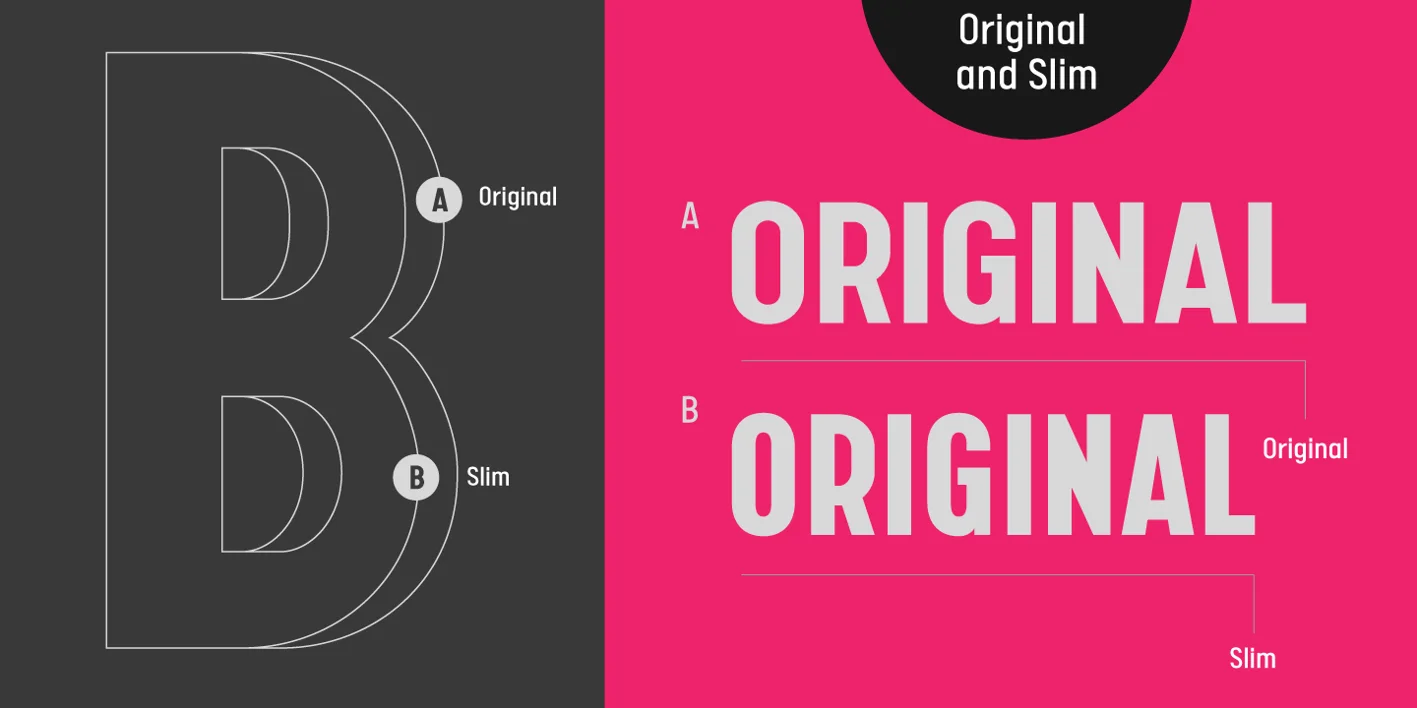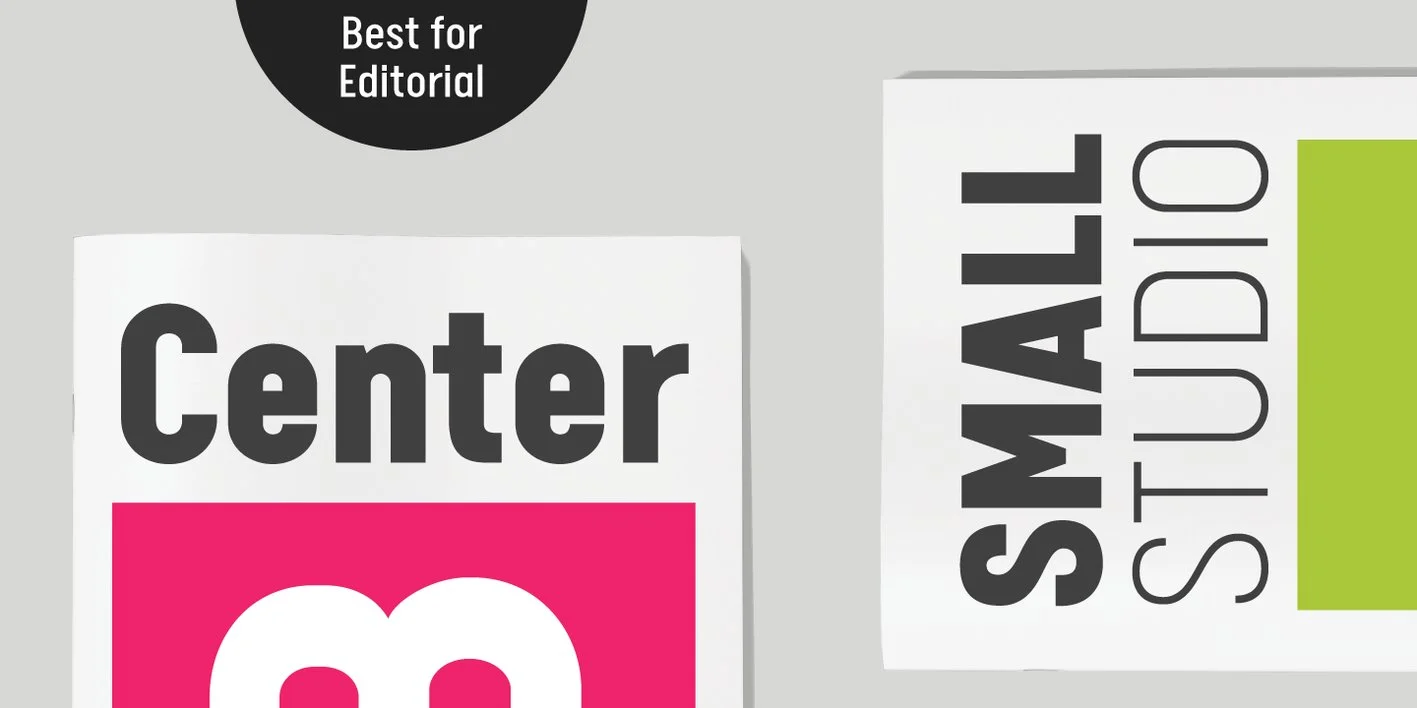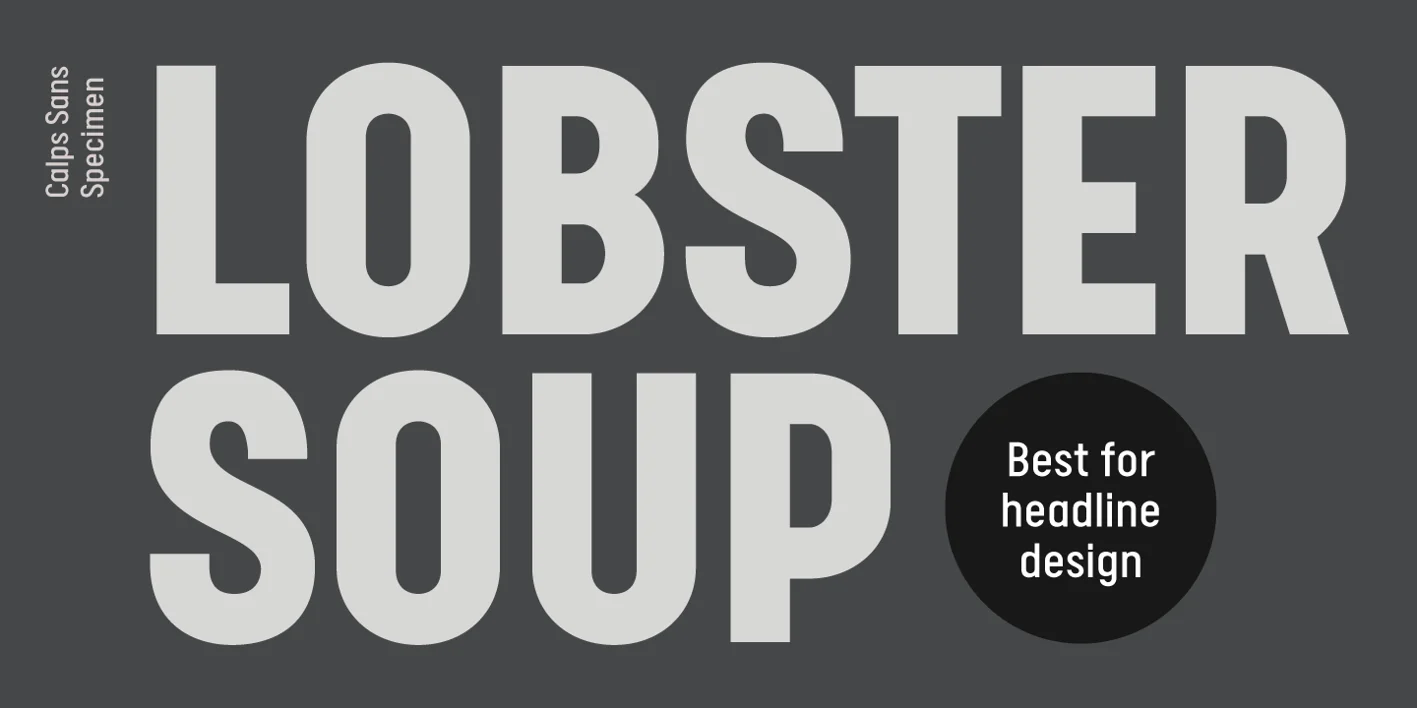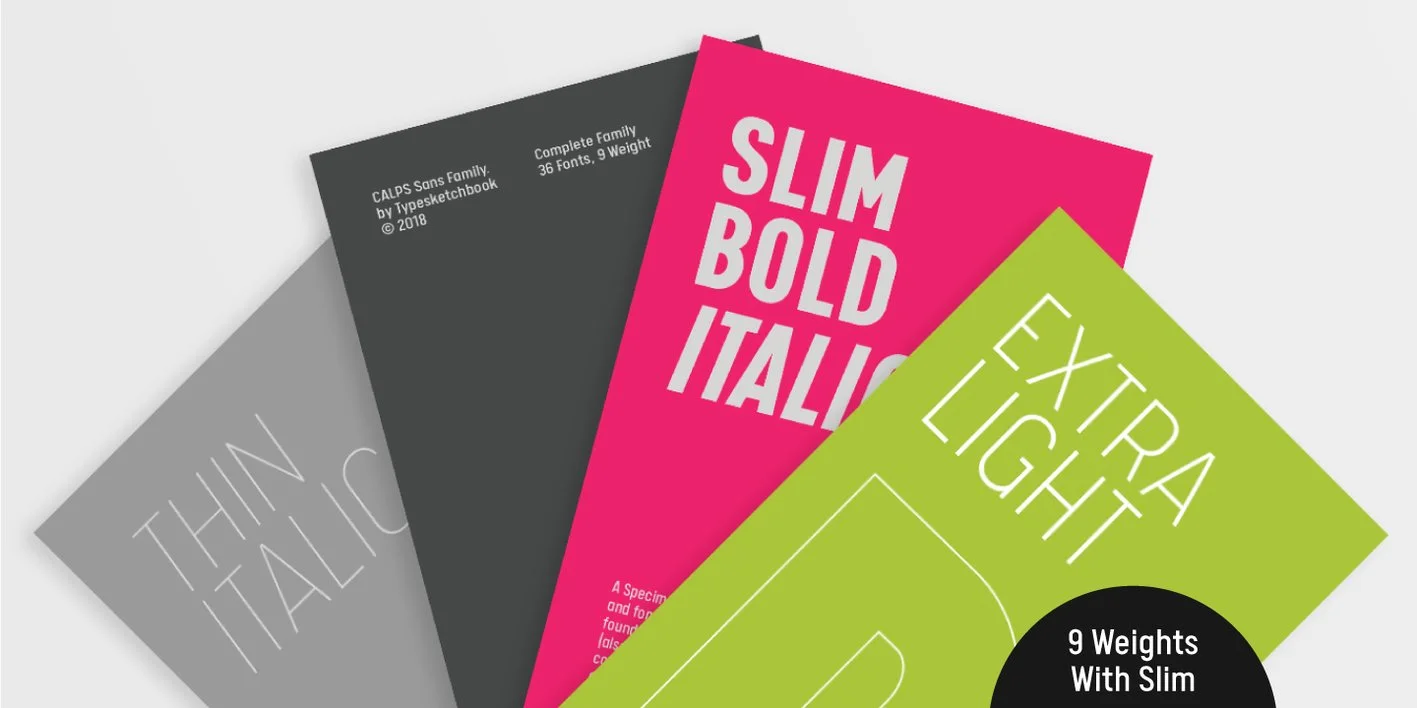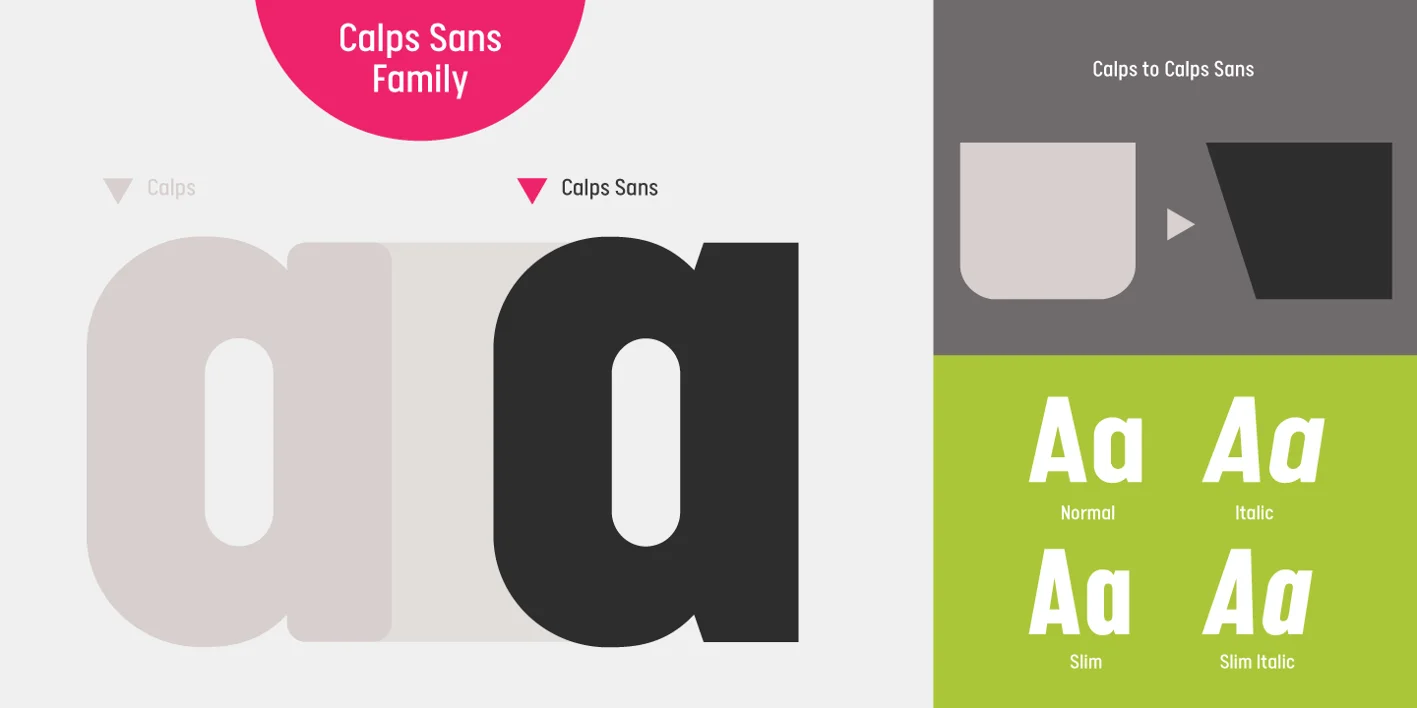
Calps Sans Font
There is a particular satisfaction in finding a typeface that delivers versatility across print and screen contexts without compromise. Calps Sans consistently provides it. The typeface brings a clean, humanist sensibility to a broad range of creative disciplines, with consistent type colour across continuous text that holds up whether the work is print-first or screen-first.
In practice, Calps Sans proves particularly effective for poster creation, signage systems, tech documentation, app interfaces, social media graphics. Designers reaching for it find that the type decisions feel resolved rather than laboured — a useful quality when client timelines are tight.
The range of applications extends to advertising campaigns, presentation decks, web design, fintech products. That breadth is deliberate: the proportions and spacing were stress-tested across a wide range of mock briefs before the typeface was finalised.
Unlike geometric sans-serifs built on circles and squares, this design takes its cues from the proportions of classical Roman letterforms, producing a warmth that sustains reader comfort over long passages of text without sacrificing the clean lines expected in modern digital interfaces.
Pairing Calps Sans with a contrasting serif or a neutral grotesque gives mixed-format layouts a clear visual grammar without requiring constant size adjustments to establish hierarchy.
Freelance designers across print and digital disciplines find Calps Sans a reliable choice for projects that demand both personality and restraint. The design avoids the self-conscious quirkiness that dates quickly, settling instead for considered distinctiveness that holds up over time.